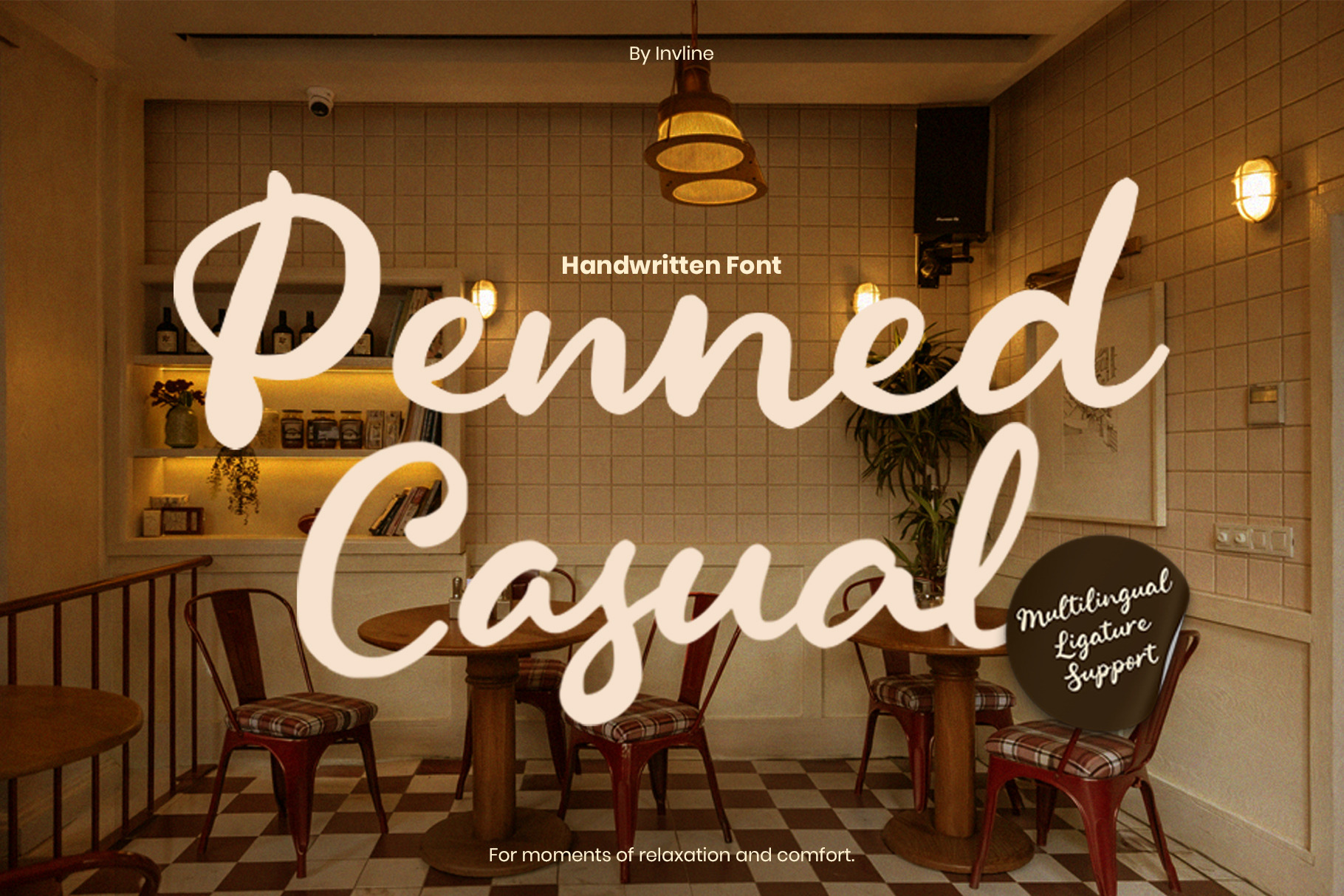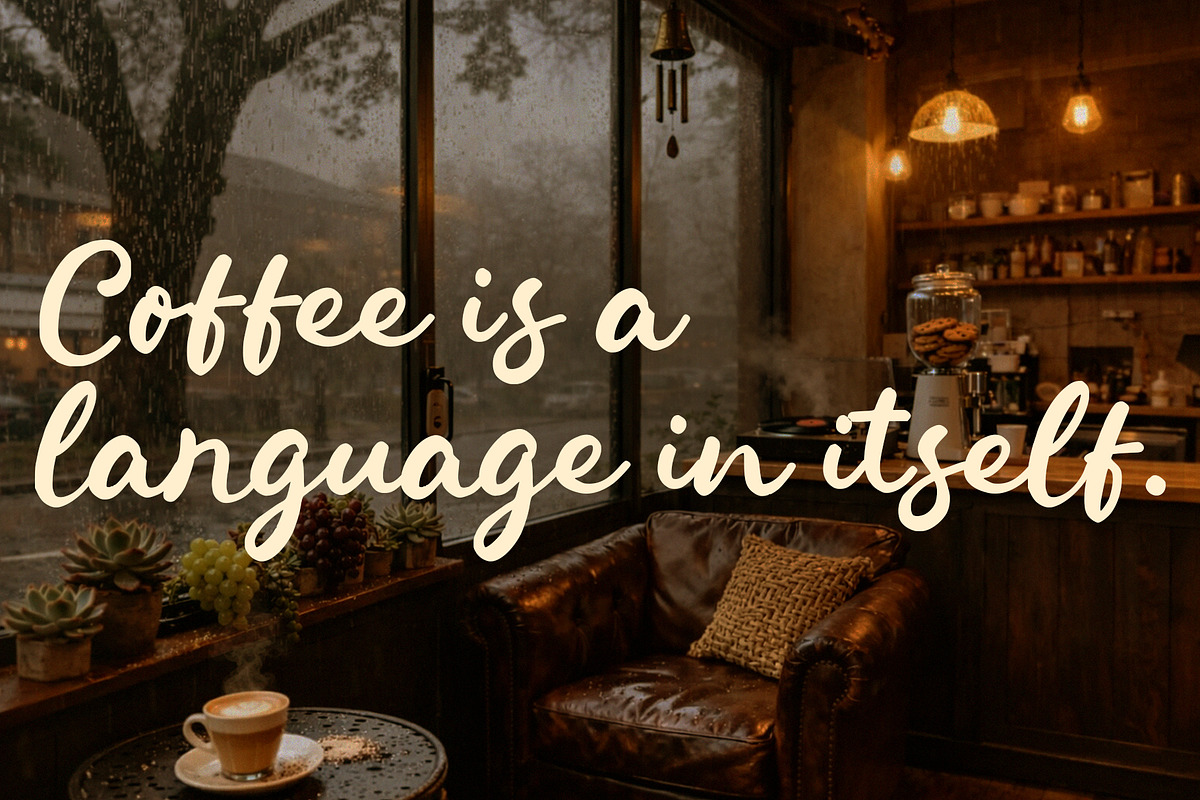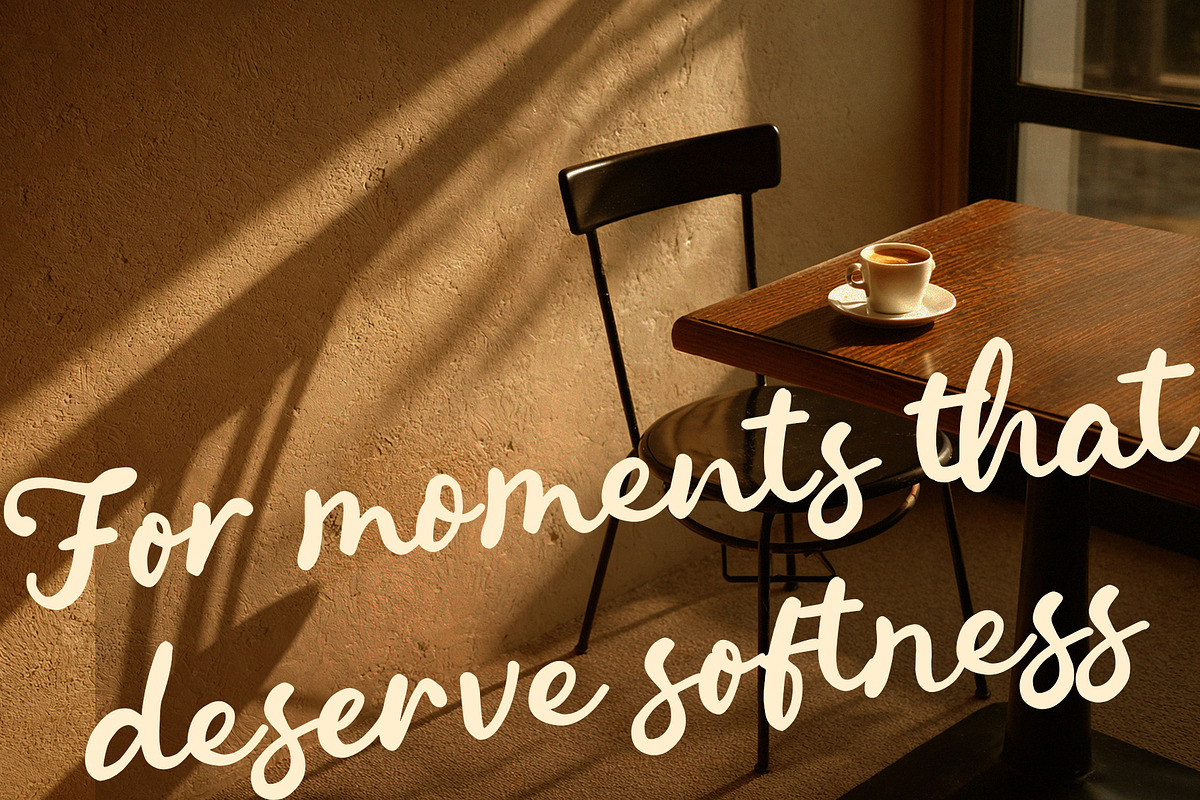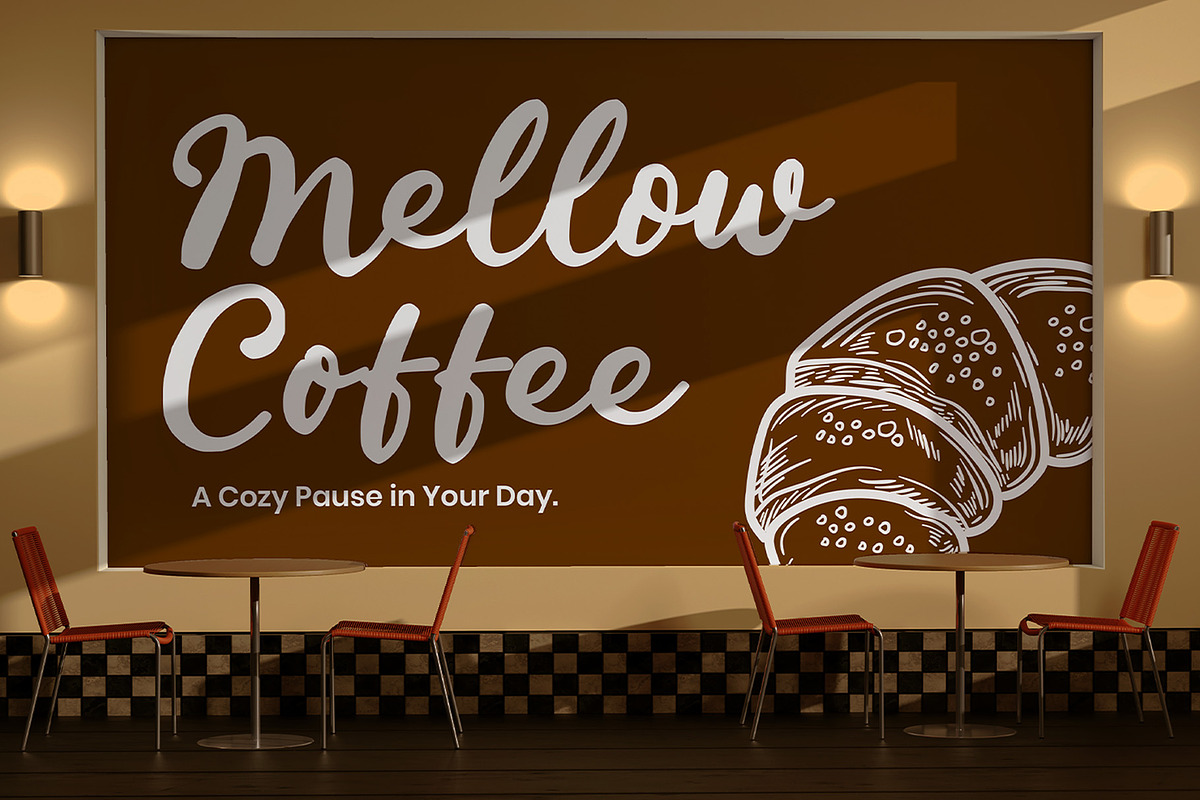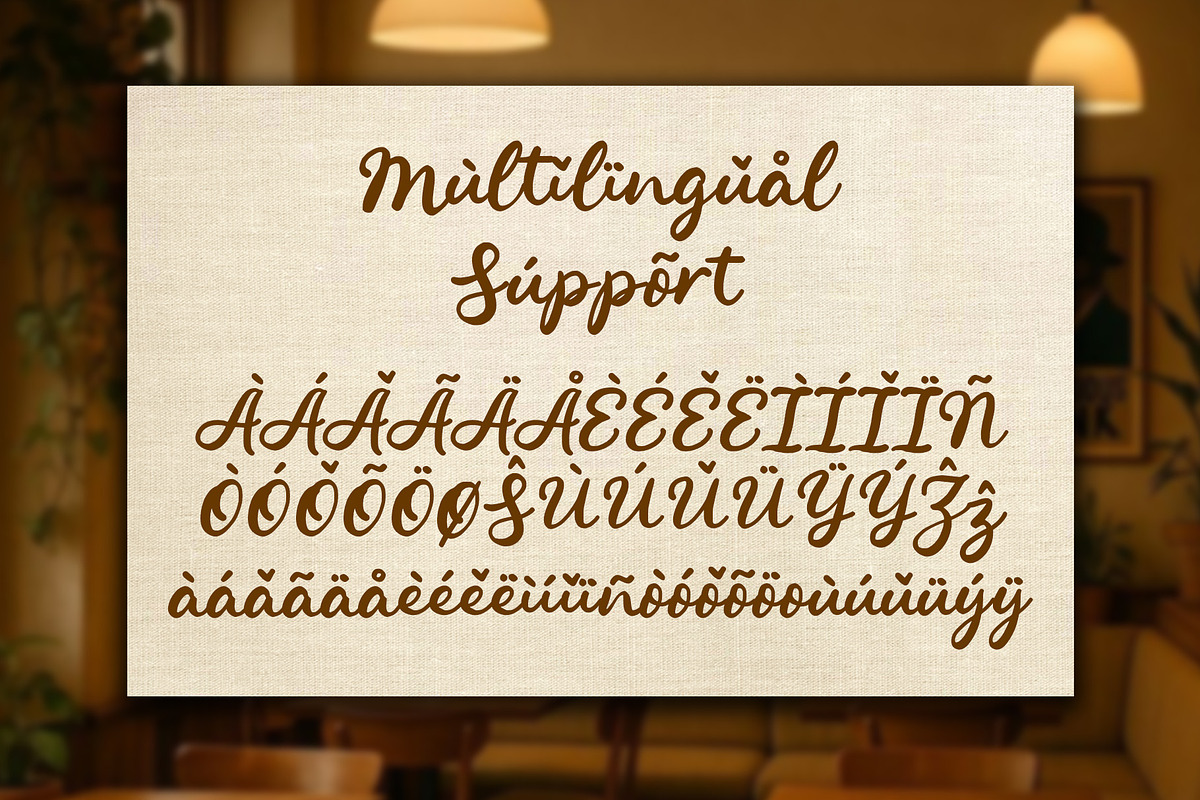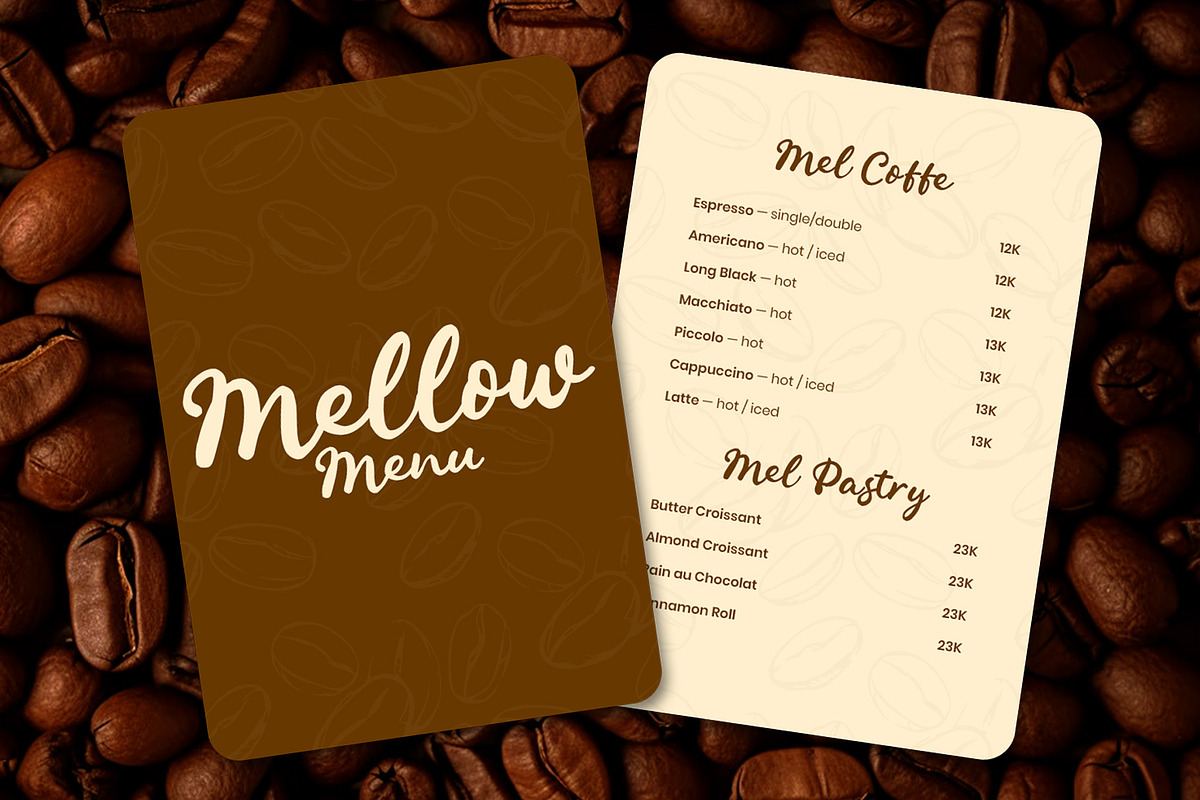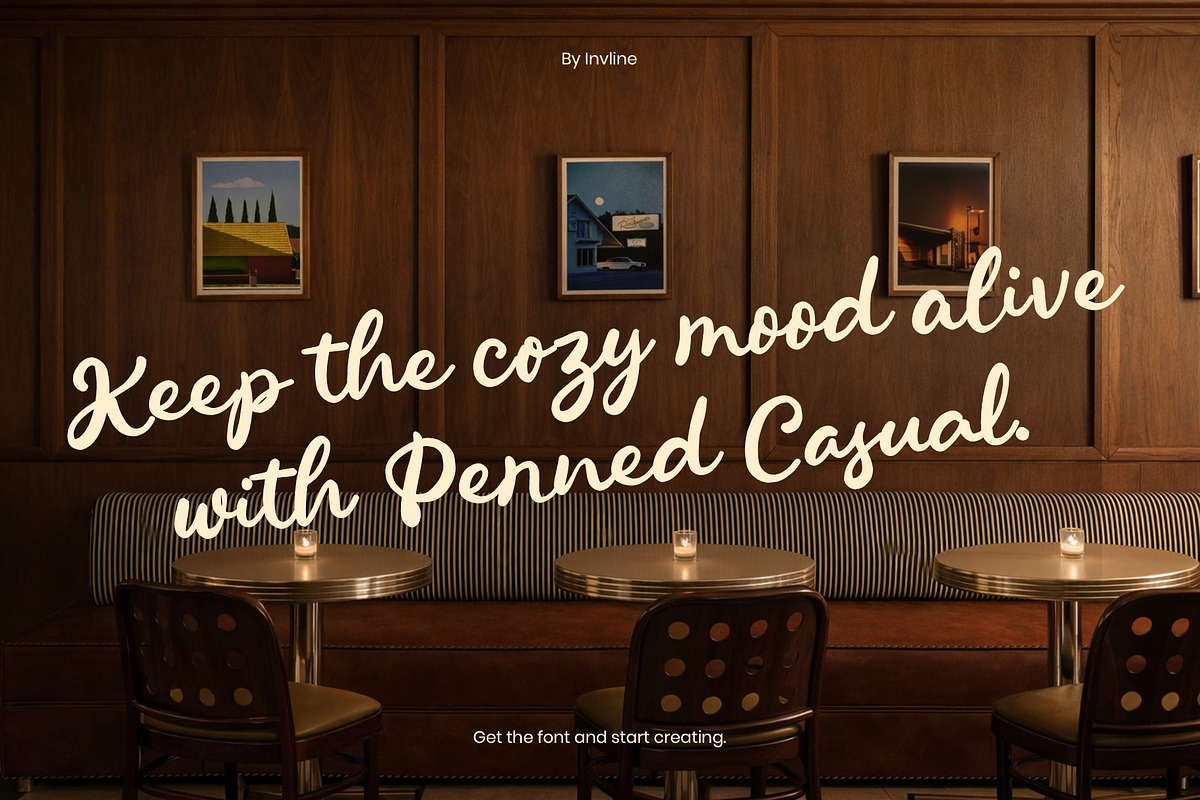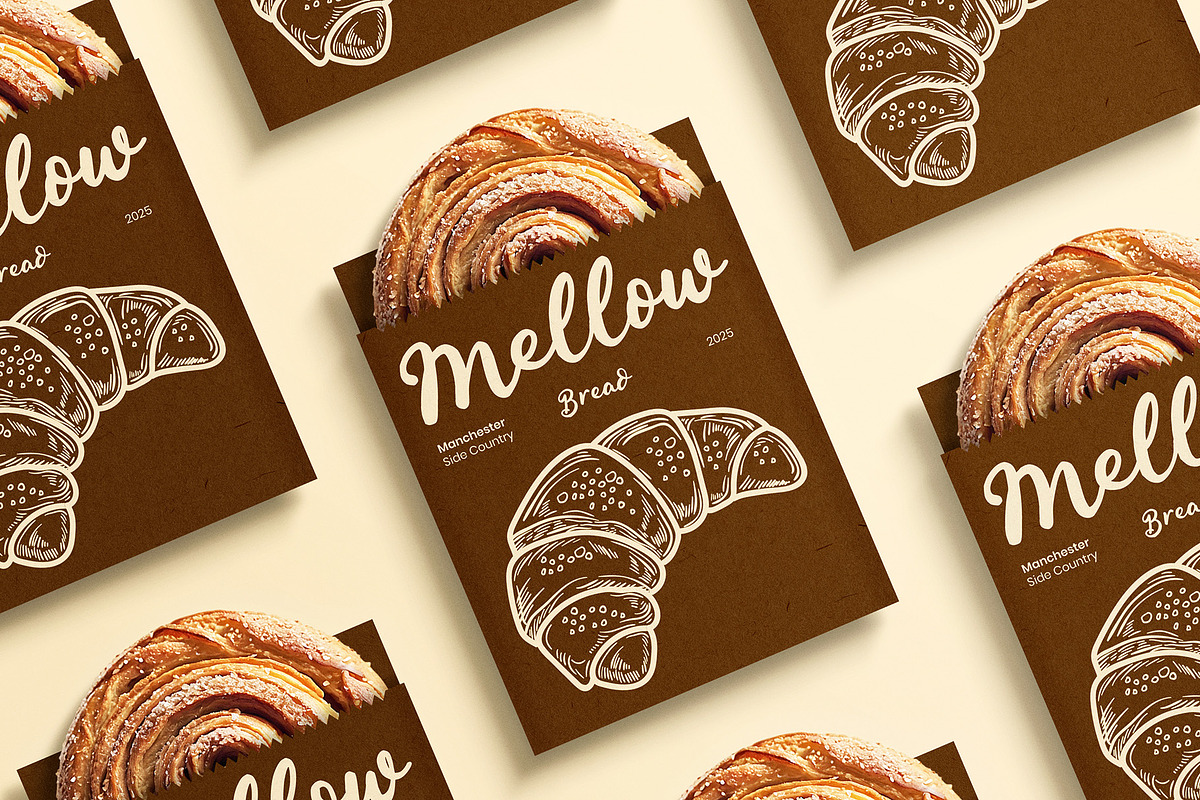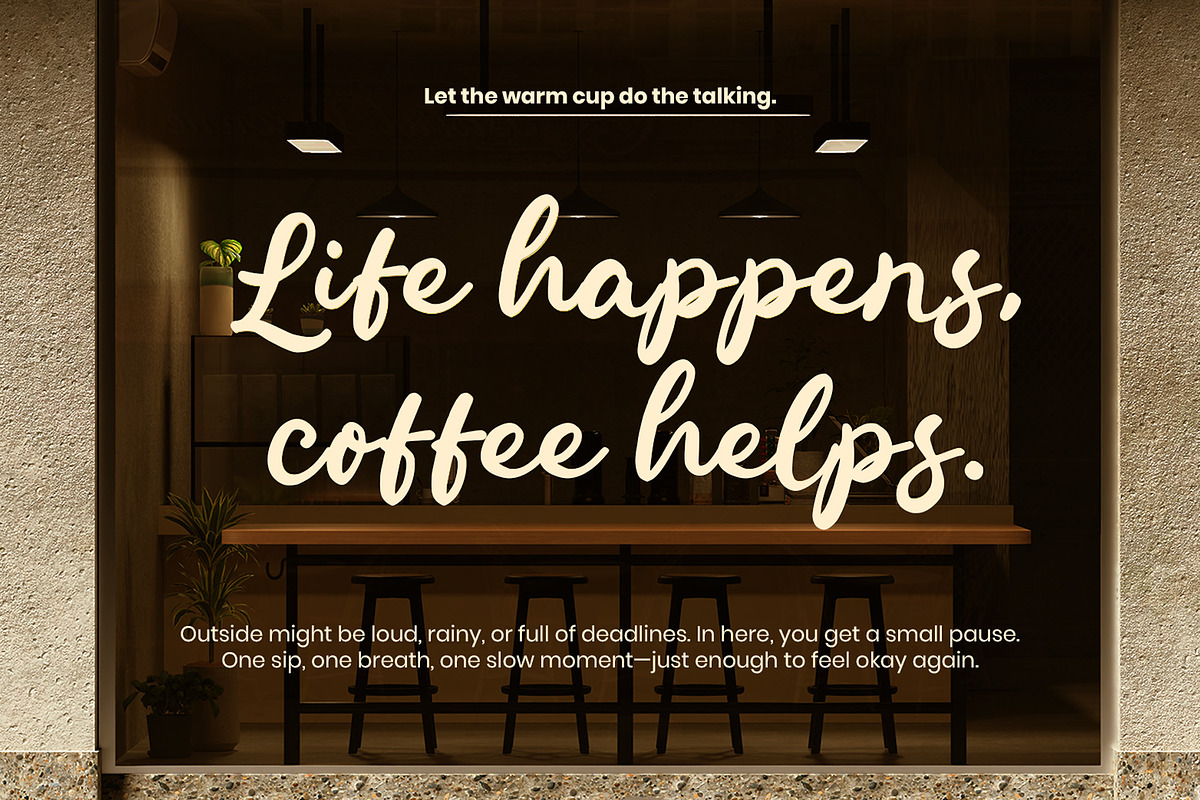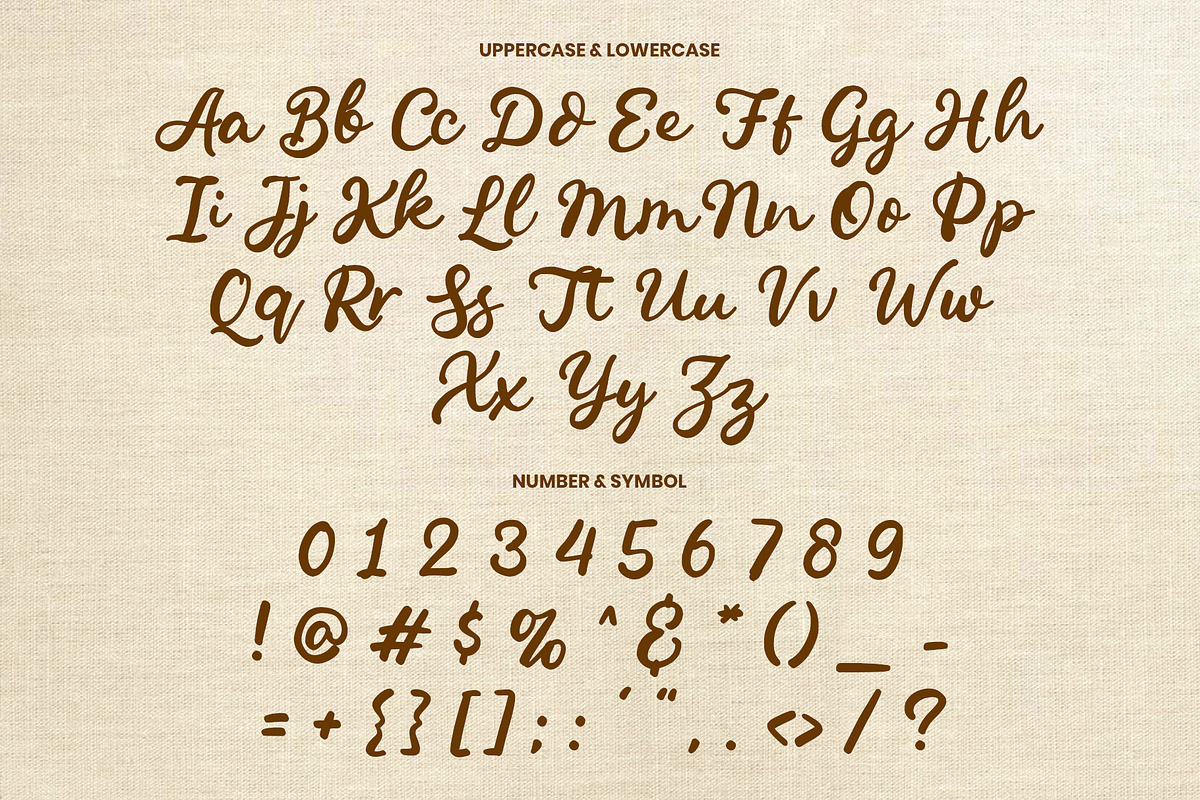
Penned Casual - Handwritten Font
Penned Casual is a warm handwritten script font made for slow mornings, quiet cafés, and moments that deserve softness. Each letter feels like it was written in the corner of a coffee shop rounded, relaxed, and gently flowing from one stroke to the next. It brings a friendly, welcoming tone to any design, perfect when you want your message to feel personal rather than polished and corporate.
Inspired by café menus, bakery packaging, and handwritten notes on napkins, Penned Casual gives your visuals the comfort of a familiar place. Its smooth curves and easy readability make it ideal for both headlines and short texts, wrapping your designs in a cozy atmosphere that feels inviting, warm, and genuine.
Uppercase & lowercase characters
Standard ligatures for more natural letter flow
Smooth, friendly strokes with casual rhythm
Great legibility in medium to large sizes
Coffee shop & café branding
Bakery and dessert packaging
Menu designs and table cards
Cozy lifestyle quotes for Instagram
Warm signage & storefront lettering
Journals, planners, and stationery
Home decor prints & wall art